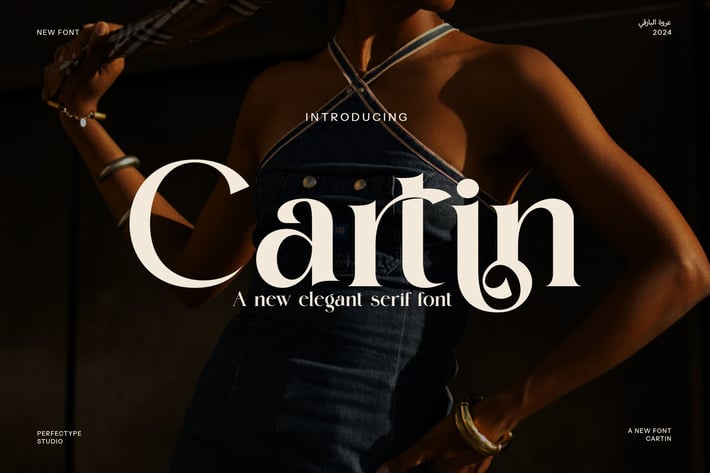
Cartin Elegant Serif Font
Cartin Elegant Serif Font is a refined and modern serif typeface designed to bring sophistication and uniqueness to your designs. With its graceful and stylish letterforms, this font stands out for its distinctive ligatures and alternates, where multiple characters merge seamlessly into elegant shapes. This thoughtful design feature enhances its visual appeal, giving your text an exclusive, hand-crafted feel.
Whether you’re creating a logo, branding materials, or editorial layouts, Cartin Elegant Serif is perfect for adding a touch of luxury and professionalism. Its versatility makes it suitable for a wide range of applications, including websites, magazines, product packaging, and advertisements. The font’s carefully crafted serifs provide a balanced mix of tradition and modernity, making it a timeless choice for businesses looking to convey both elegance and authority.
Cartin Elegant Serif shines especially in industries like fashion, lifestyle, food, and boutique services, where sophisticated aesthetics are essential. Its legibility and charm ensure that it makes a lasting impression in every project. From minimalistic to detailed designs, this font adapts effortlessly to various creative directions. Whether used in headlines, logos, or body text, Cartin Elegant Serif exudes class and modern elegance, making it the perfect typeface to elevate your next design. With its stunning alternate characters and beautiful ligatures, this font will undoubtedly help your project stand apart and leave a memorable impact.